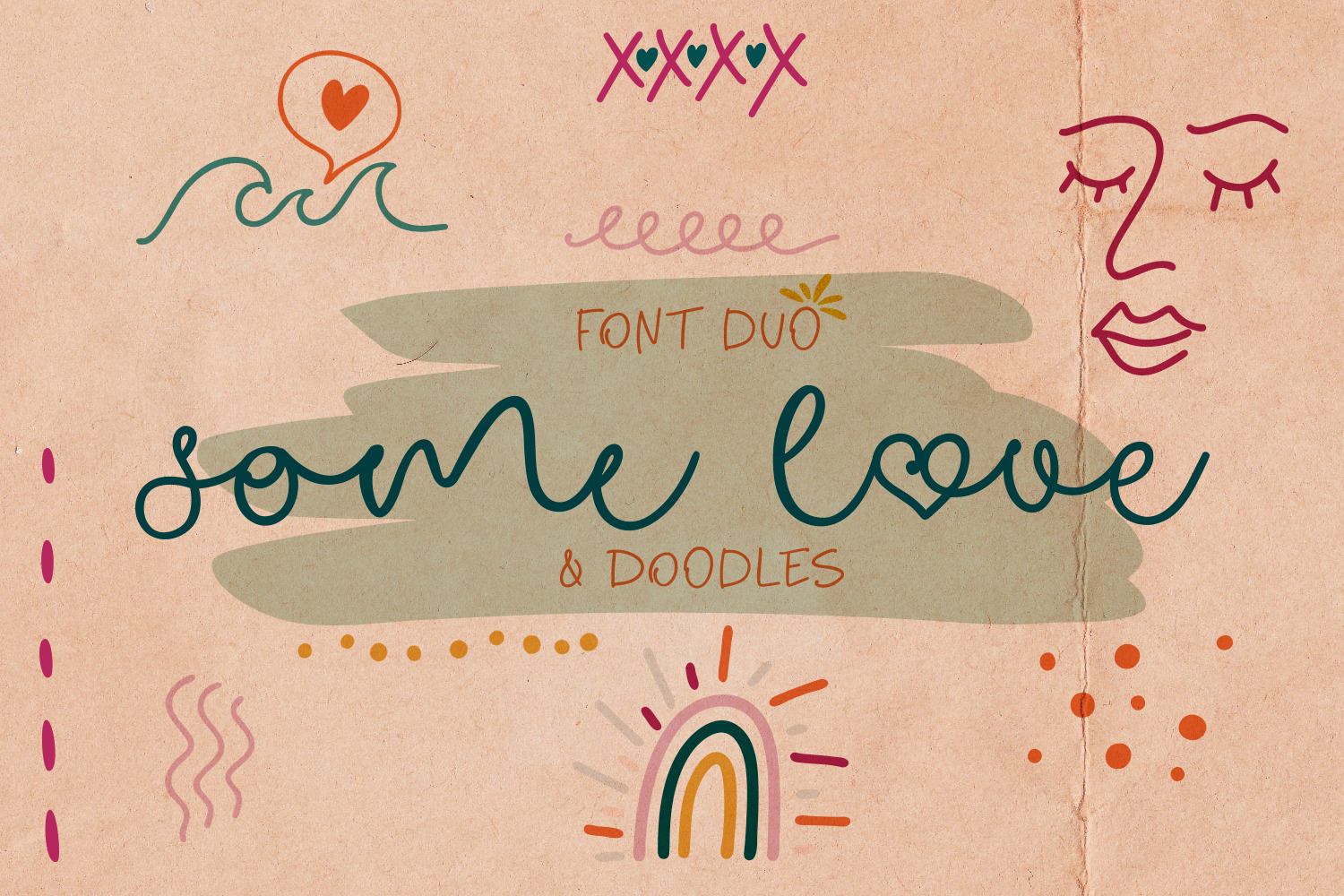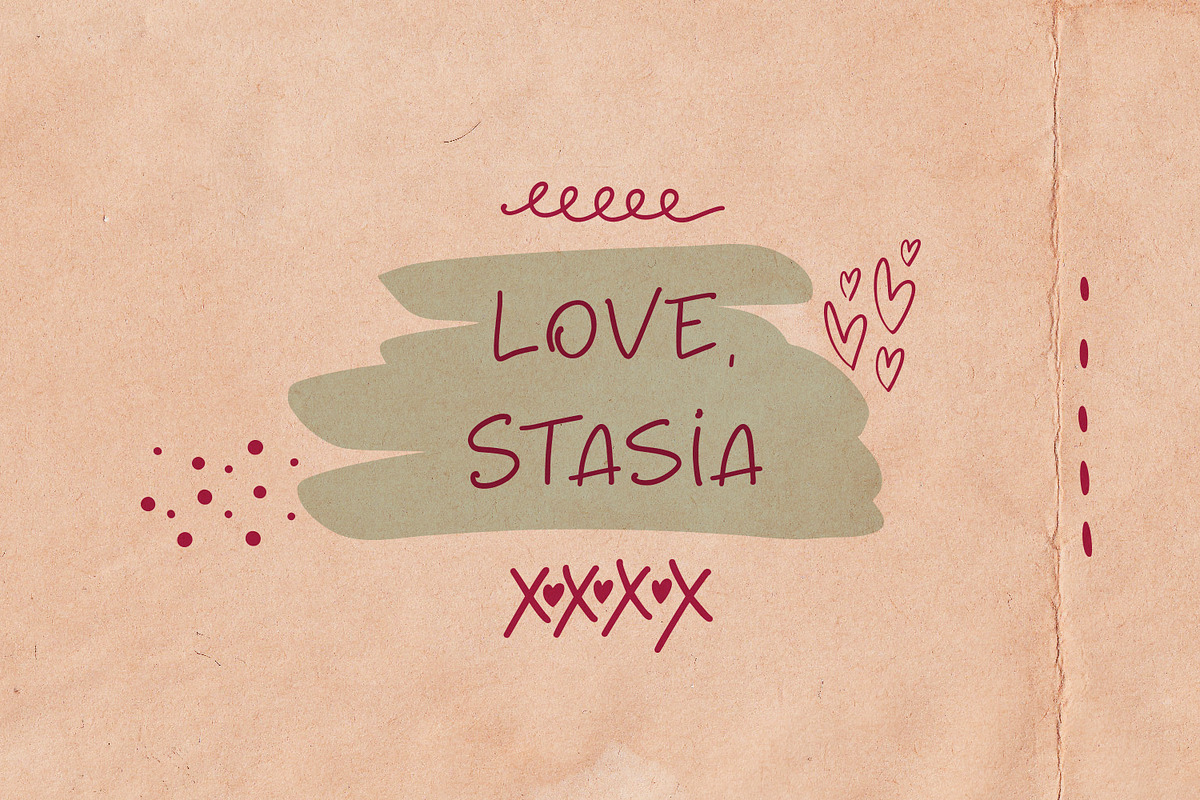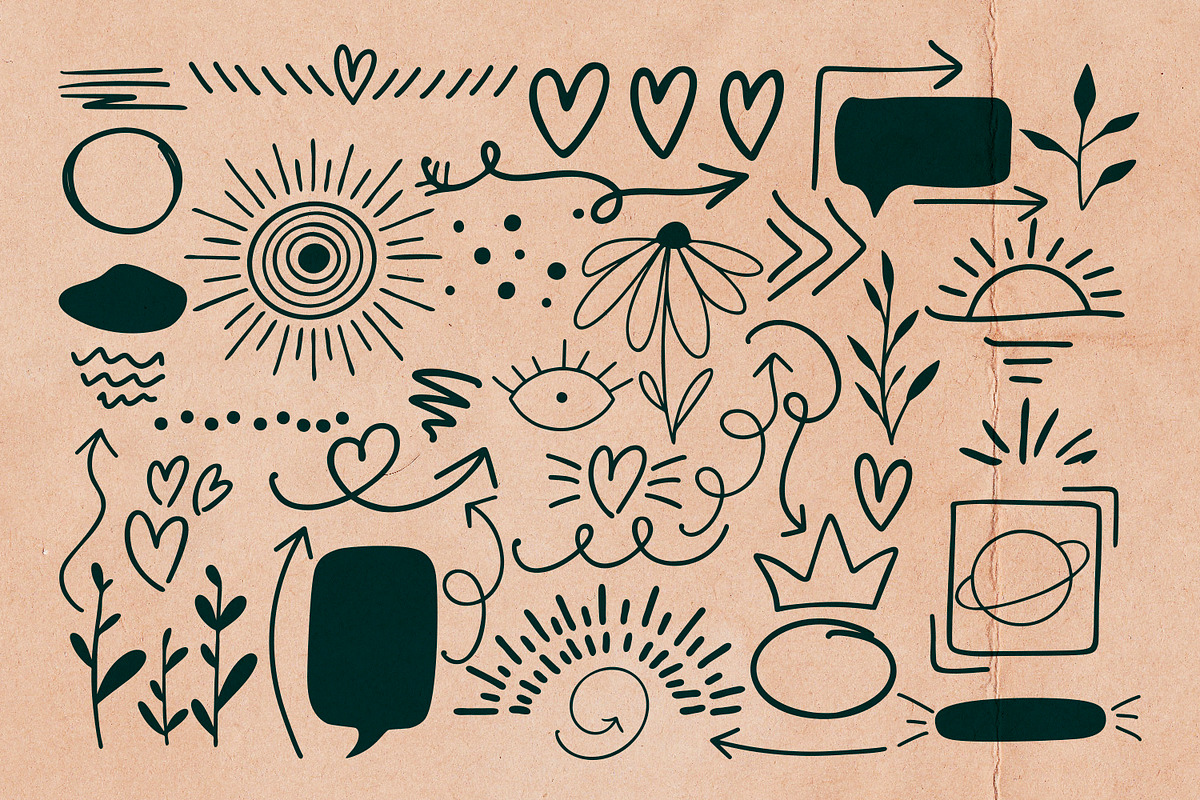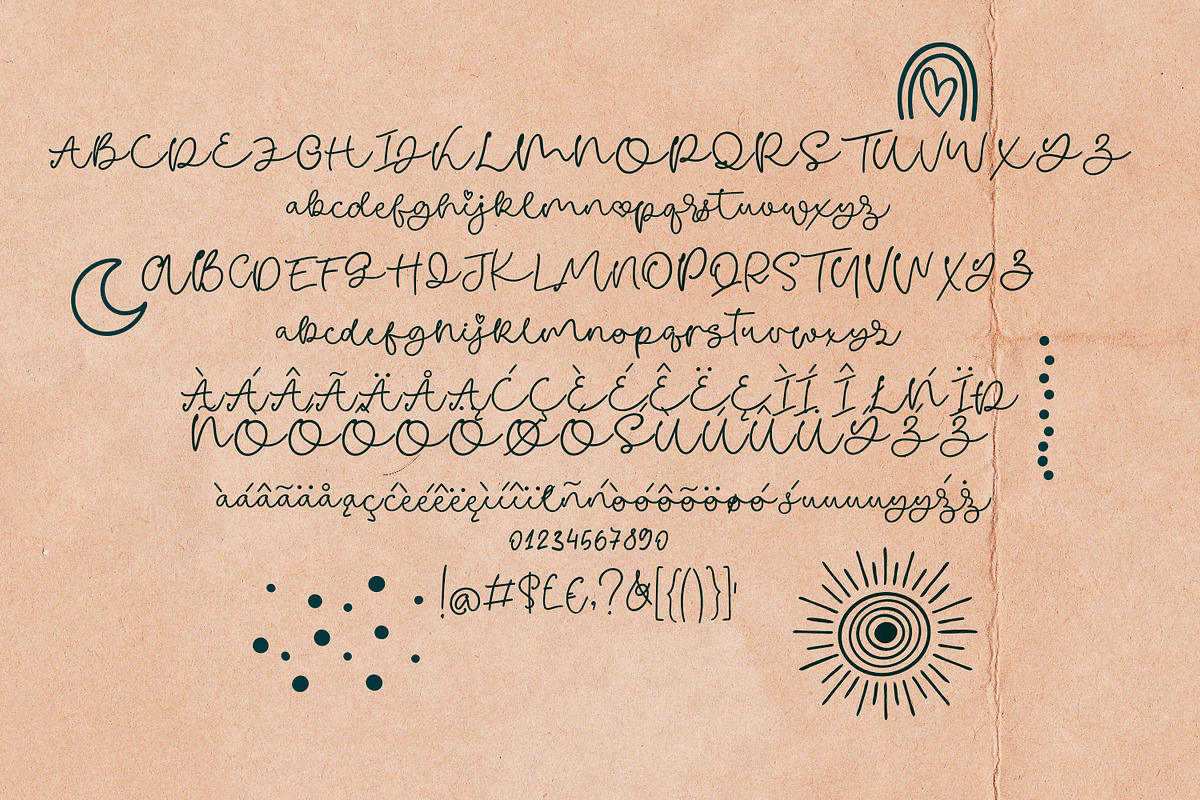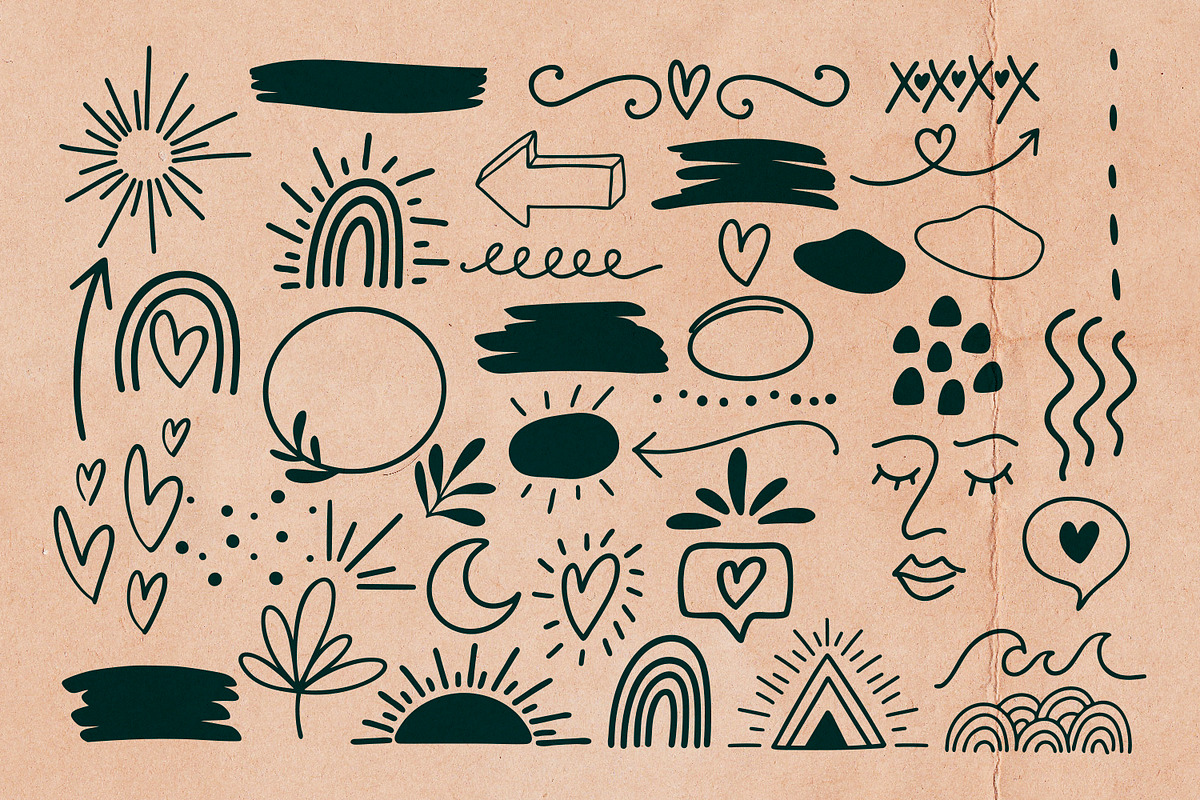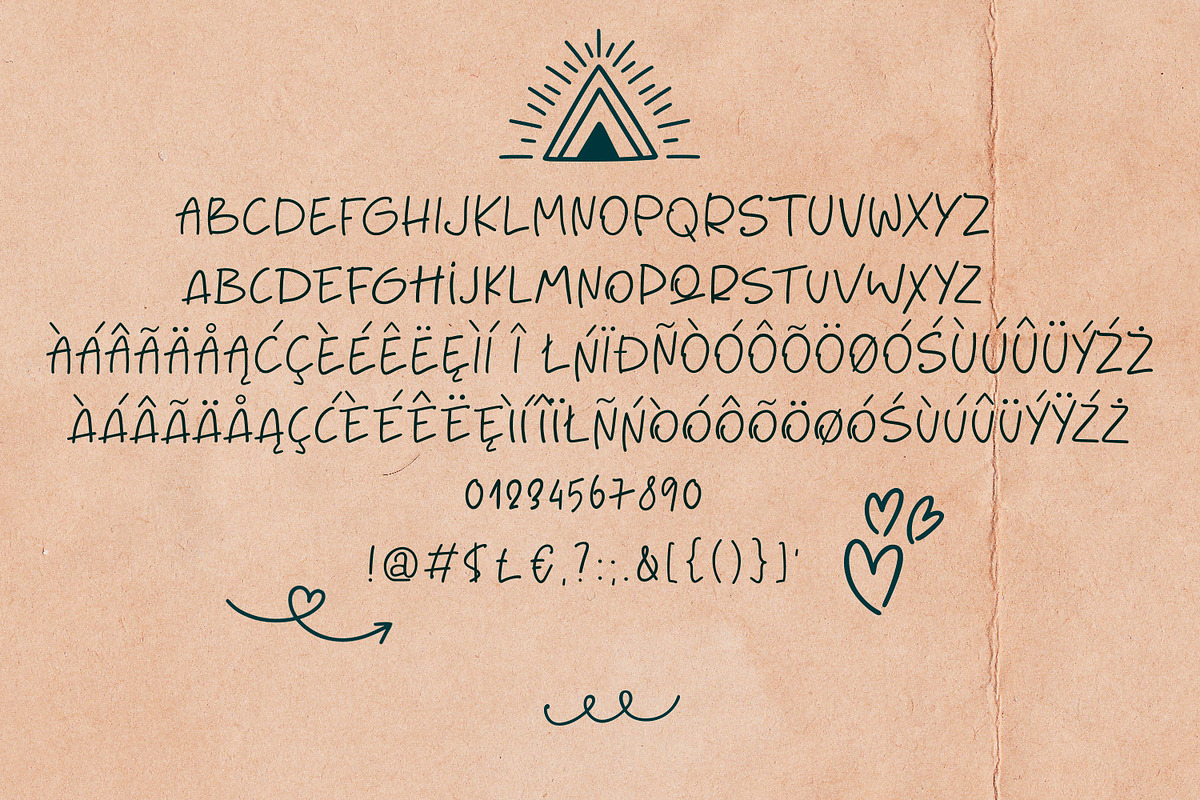
Some Love Font Duo & Doodles
Some Love Font Duo & Doodles - it's a trendy font duo with cute doodles. Perfect for logos, social media, projects like cards, mugs and tshirt design.